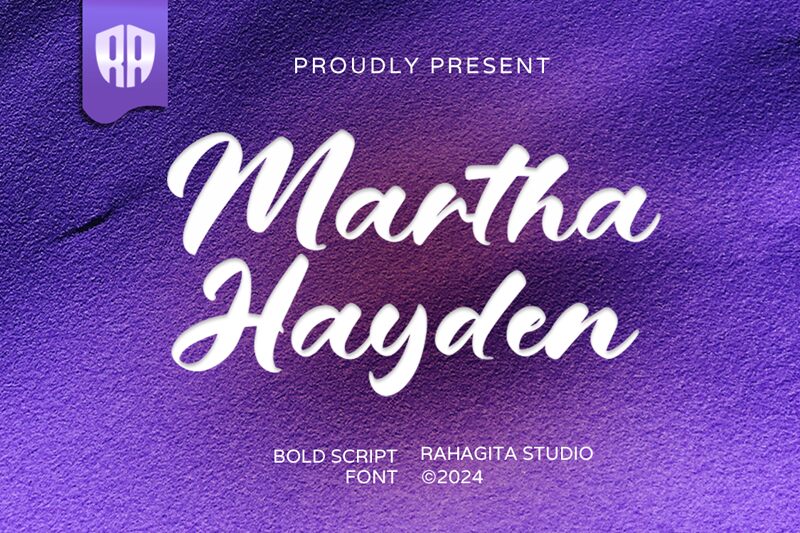
Martha Hayden font by Rahagita Studio is a bold calligraphy font with smooth brush flow, modern touch, and expressive curves. Its script style allows it to reflect the most elegant tone in any text with ease. And whether in logotypes and company names or more informal personal designs, its effect always remains as powerful.
Martha Hayden